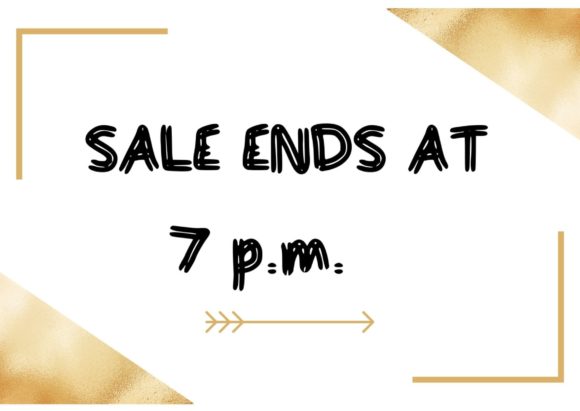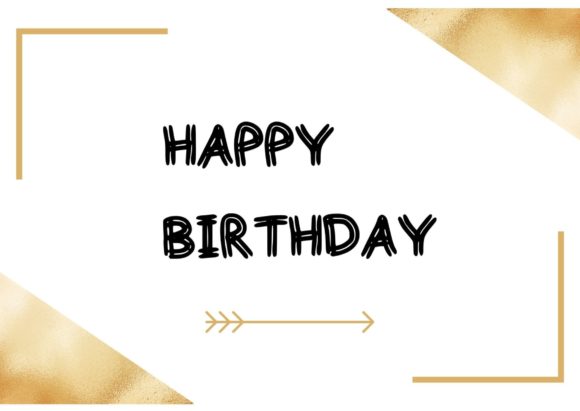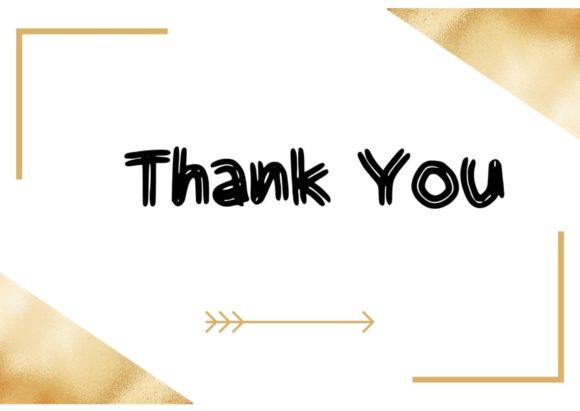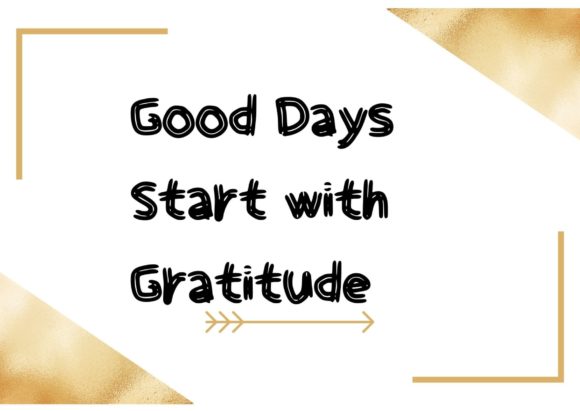
Discover the Charm of Double Lined Font: Elevate Your Designs with this Cute and Friendly Display Font
In the world of typography, fonts play a crucial role in conveying the tone and personality of a design. Whether you’re working on a branding project, crafting a social media post, or creating a digital art piece, the right font can make all the difference. If you’re on the hunt for a font that exudes friendliness and approachability, look no further than Double Lined Font. This adorable display font is sure to become a staple in your font library, and for good reason.
The Allure of Double Lined Font
Double Lined Font is a visually appealing typeface that boasts a unique, dual-lined design. Its distinctive appearance is instantly recognizable and can add a touch of whimsy to any design project. The font’s clean lines, subtle rounded edges, and balanced proportions make it both aesthetically pleasing and highly legible. Whether you’re looking to create a bold statement or add a dash of personality to your text, Double Lined Font is an excellent choice.
One of the standout features of Double Lined Font is its incredible versatility. No matter the topic or theme of your design, this font can adapt to suit your needs. From playful and fun to elegant and sophisticated, Double Lined Font can effortlessly shift to match the tone of your project. This adaptability makes it an invaluable asset for designers, crafters, and marketers who work on a wide range of projects.
Applications for Designers and Crafters
So, how can you use Double Lined Font to elevate your designs? Here are a few ideas to get you started:
- Branding and Logos: Create a memorable brand identity with Double Lined Font. Its friendly and approachable vibe makes it perfect for businesses looking to establish a connection with their audience.
- Social Media Graphics: Add a pop of personality to your social media posts, stories, and graphics with this eye-catching font.
- Digital Art: Use Double Lined Font to add text and captions to your digital art pieces, such as illustrations, watercolor designs, or mixed media creations.
- Crafting and Scrapbooking: Add a touch of whimsy to your craft projects, such as scrapbooking, card making, or journaling, with this charming font.
Why Double Lined Font Stands Out
In a sea of fonts, Double Lined Font offers several unique advantages:
- Unique Design: The dual-lined design sets it apart from more traditional fonts, making it a great choice for designers looking to add some visual interest to their work.
- Legibility: Despite its distinctive appearance, Double Lined Font remains highly legible, even at smaller sizes.
- Friendliness: The font’s rounded edges and approachable vibe make it perfect for designs that require a friendly, approachable tone.
Double Lined Font is a valuable addition to any designer’s or crafter’s font library. Its unique design, versatility, and friendly vibe make it an excellent choice for a wide range of projects. Whether you’re looking to create a bold statement or add a touch of personality to your text, Double Lined Font is sure to deliver. So why not give it a try and see how this charming font can elevate your designs?
With Double Lined Font, the possibilities are endless. Its potential to transform your designs is vast, and its adaptability ensures that it will remain a trusted companion in your creative journey. Make the most of this incredible font and watch your designs come to life in a whole new way.